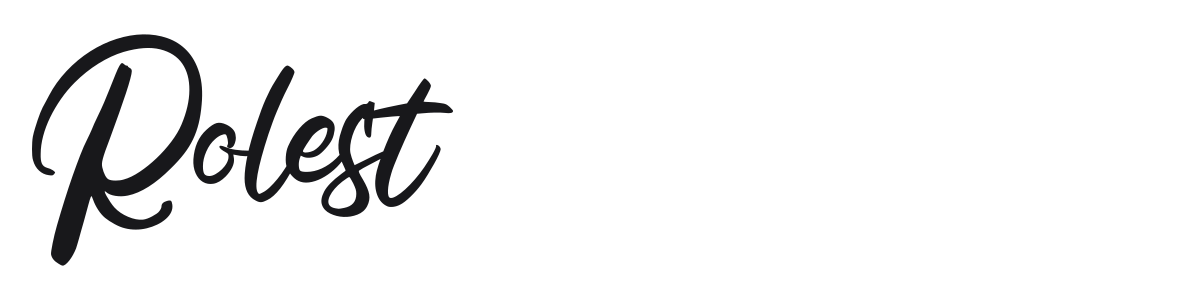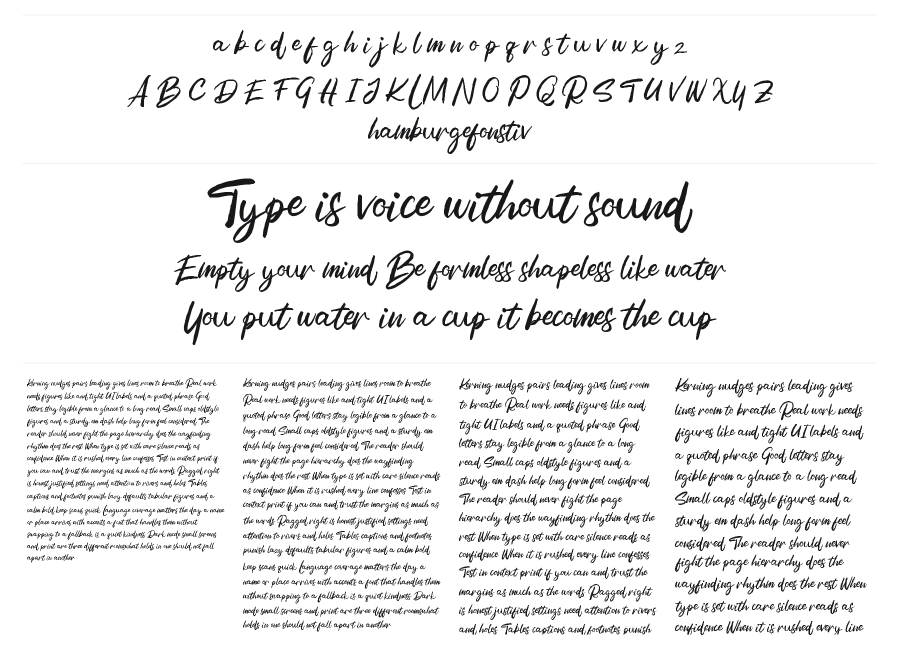
Rolest
Rolest is a casual connected brush script with flowing strokes and a lively, handwritten energy. The generous loops, sweeping descenders, and natural variation in stroke weight give it an authentic hand-drawn feel without looking rough. It suits branding, packaging, and any context where warmth and personality matter.